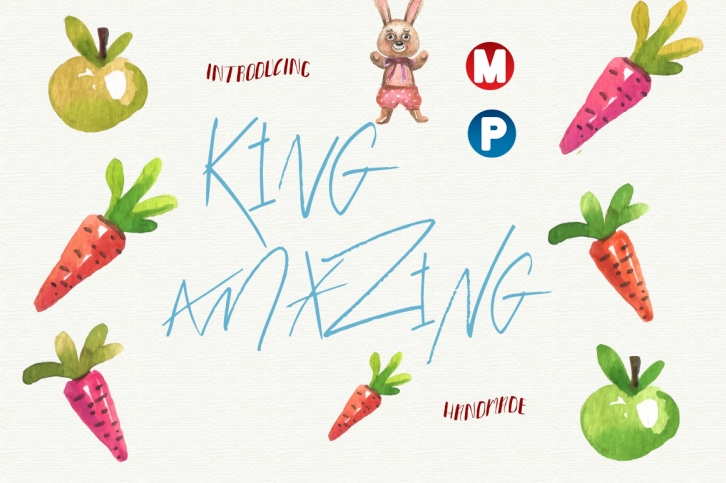
King Amazing is a great font that was designed by MagicHandStudio. Imagine the amount of combinations you can create using this font! The archive is 2.45 MB and it was released on June 2, 2016. King Amazing looks beautiful on wedding invitations, greeting cards, logos, posters, labels, t-shirt designs, logos, business cards and is perfect for use in ink or watercolor works, fashion, magazines, packaging and food menus, children's books and more!